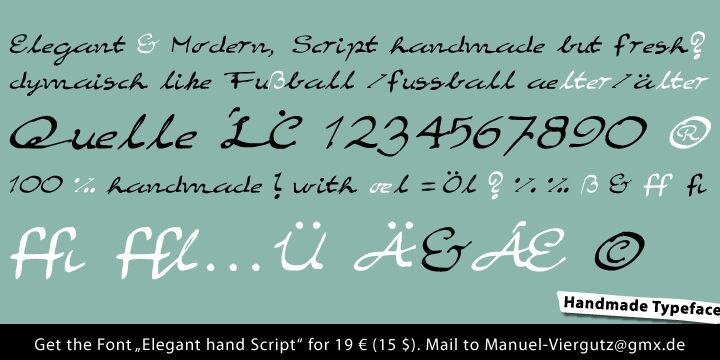
Elegant Hand Script by Manuel Viergutz is a free calligraphic script with sweeping capitals and sharply tapered strokes. Its letters feature long curves, sudden hooks, and lively changes in weight. The overall line feels quick and theatrical.
Cabaret styling makes it a strong fit for event invitations, album artwork, and fashion campaigns. It is especially convincing for dance and nightlife projects, where the exaggerated flourishes reflect expressive movement.
Elegant Hand Script has one regular style and more than 130 glyphs, including accents.
The font is by Typo Graphic Design and Manuel Viergutz.